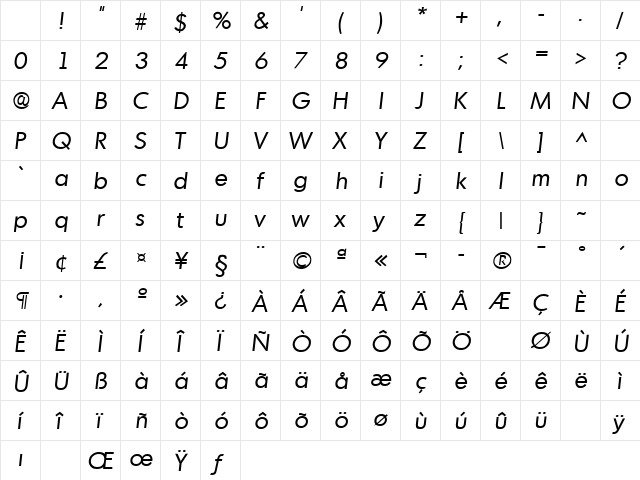
Montreal SF Italic Free Font
Montreal SF Italic
Montreal SF Family
Design Context for Montreal SF
Montreal SF is a composed and adaptable typeface that performs quietly and consistently across a wide range of design contexts. The slanted form adds forward momentum and visual energy.
Pro Tip: Use Montreal SF for emphasis, pull quotes, and subheadings where its slanted energy can add rhythm to the layout.